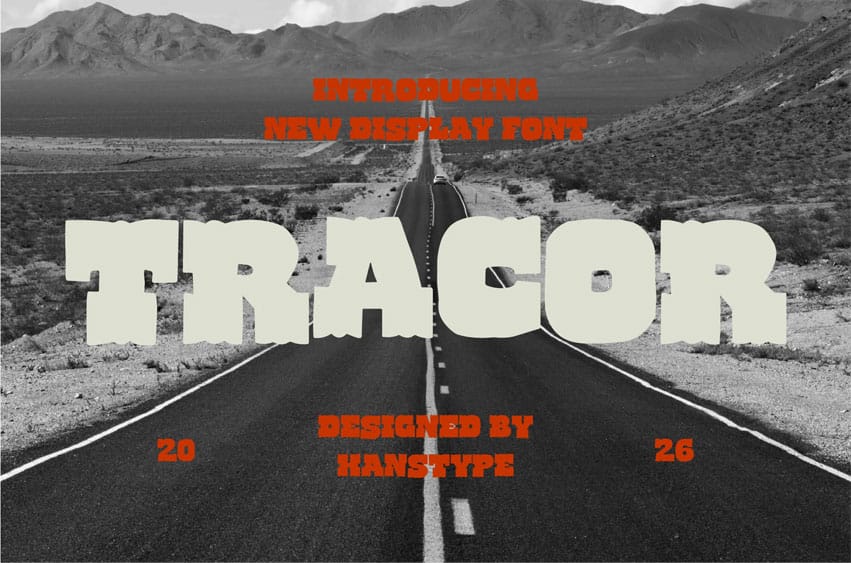
Tracor Font is a hand-drawn, retro-inspired font that combines bold, geometric shapes with a vintage flair.
Its strong, clean lines and dynamic angles evoke the essence of mid-century design, while the slightly imperfect edges add character and warmth.